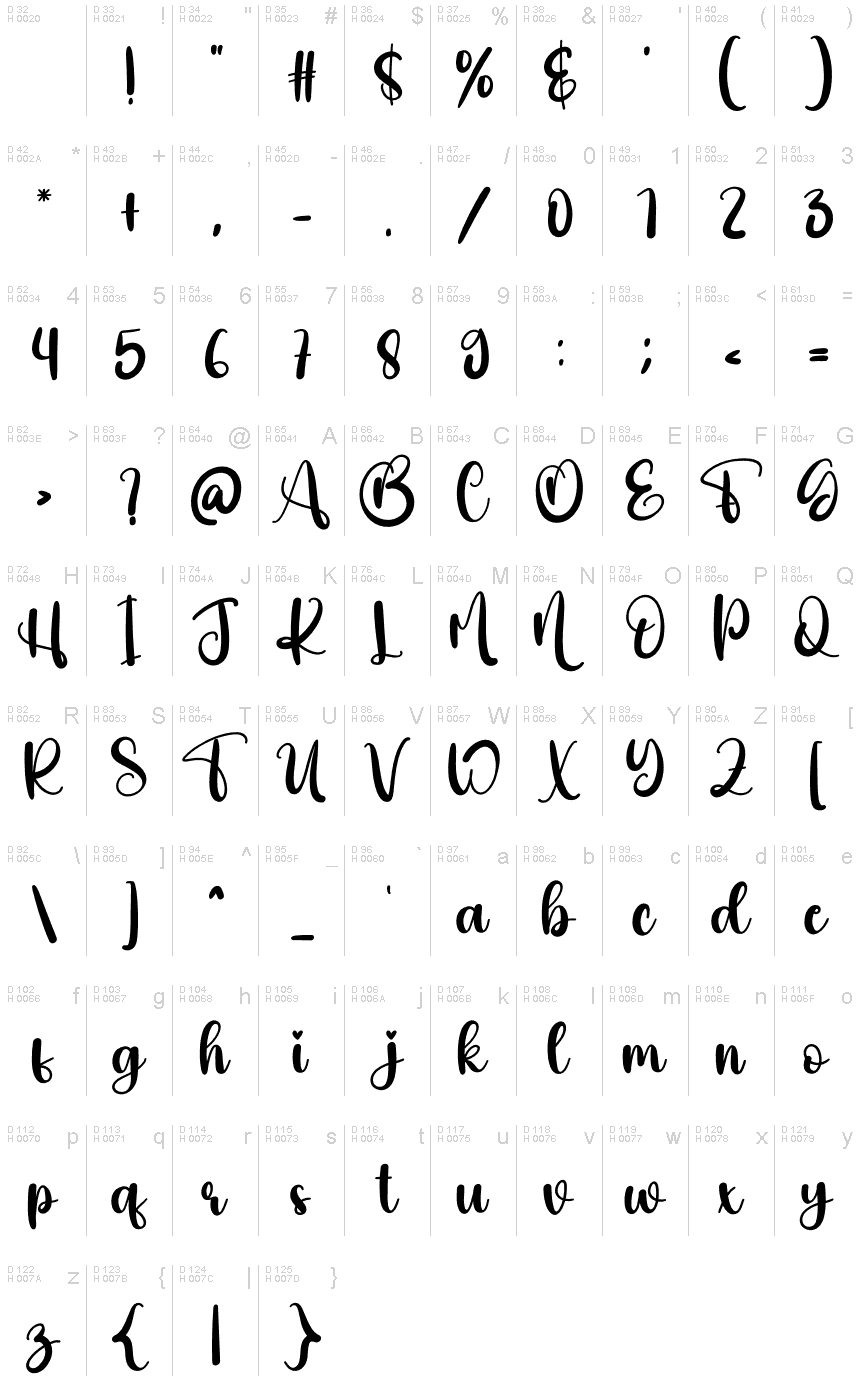
Finish
Finish, a delightful semi-bold font by scratchones, brings a touch of whimsy to every project. With its cute handwritten style, this font adds a playful and charming element to any design. Its versatility makes it suitable for a wide range of projects, such as children's books, greeting cards, party invitations, and craft labels. Give your designs a cheerful and lively vibe with Finish font!
the latest style letters are perfect for wall displays, wedding invitations, social media post logos, advertisements, product packaging, product designs, labels, photography, watermarks, invitations, stationery, and any project that requires taste handwriting.